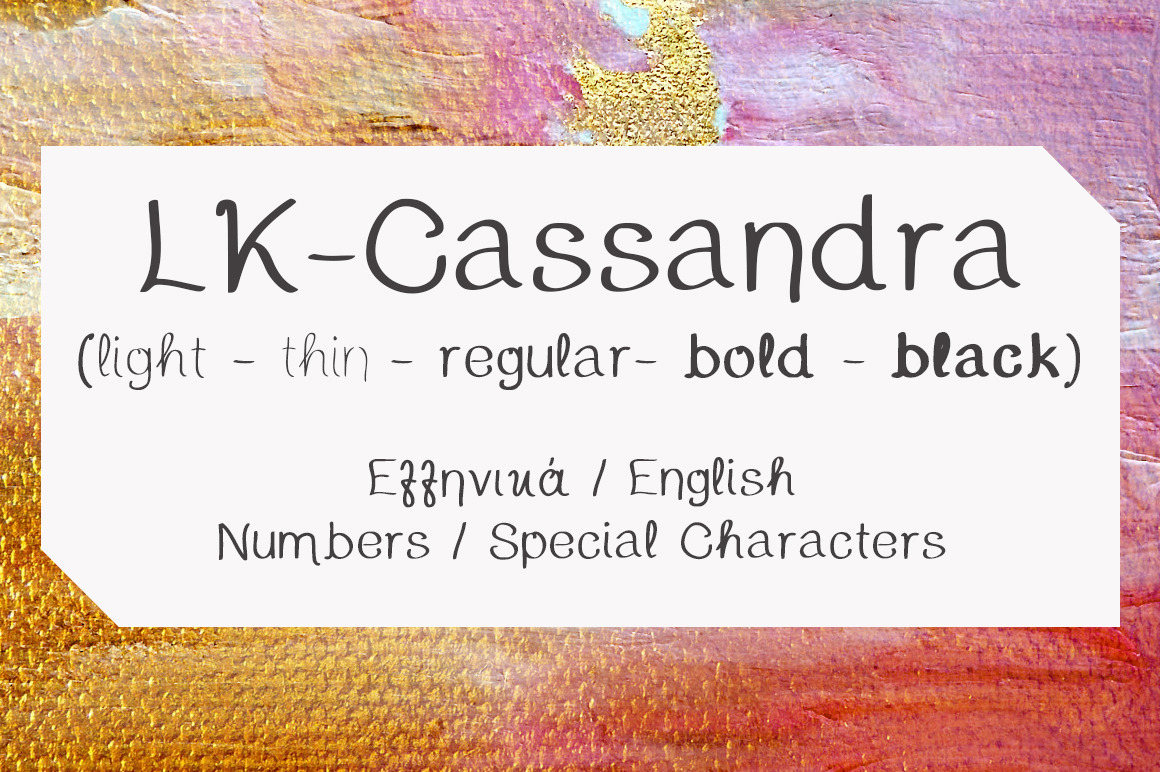
Cassandra Hand Drawn Font
The font family is most suitable for headlines flyers and posters of all sizes. Cassandra font is applicable for any type of graphic design in print graphics and perfect for logos, badges, t-shirts and other items like posters.
Included are
- Cassandra Thin
- Cassandra Light
- Cassandra Regular
- Cassandra Bold
- Cassandra Black
SUPPORT FOR GREEK CHARACTERS (see preview images)